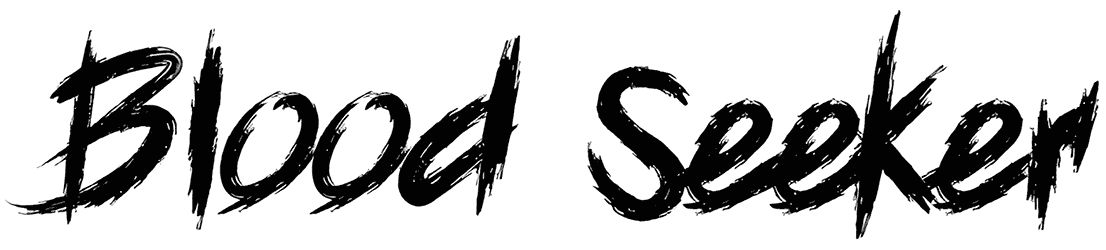
Blood Seeker Font
We believe that fear can be the best motivator to engage the audience with graphic content. If you agree with this opinion, we would like to introduce a horror font like Blood Seeker.
The crooked and angular characters of this masterpiece can inspire a sense of dread, irregularity, grunge, or excitement in the audience, convincing them to follow your movie posters, video game brochures, flyers, menus, or blog posts.
Font: Bloodseeker
– Horror Theme Typeface